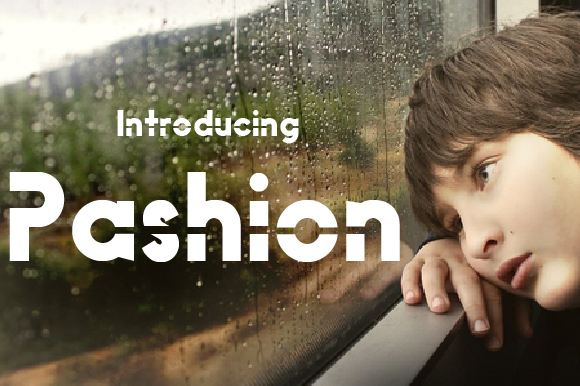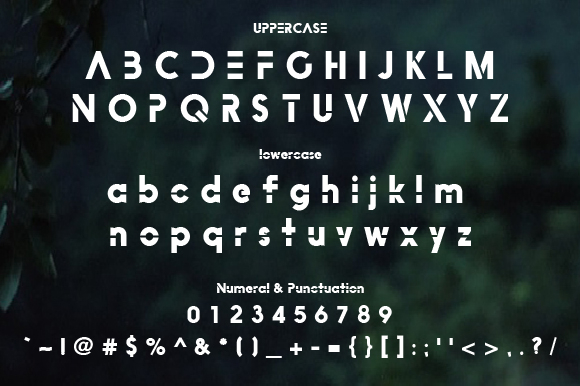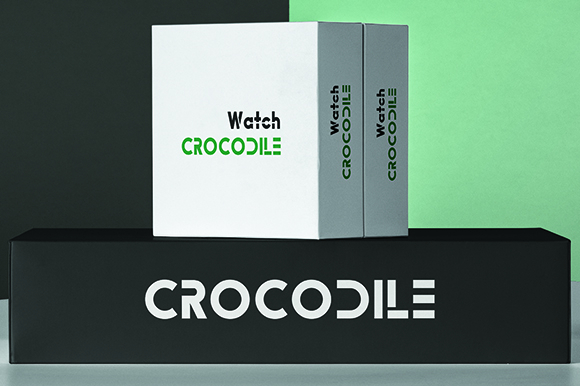
Pashion Font
About Pashion Font
The Pashion is a highly legible typeface. It’s unique style can be applied to logos, slogans, product names. headlines, magazines, and much more!